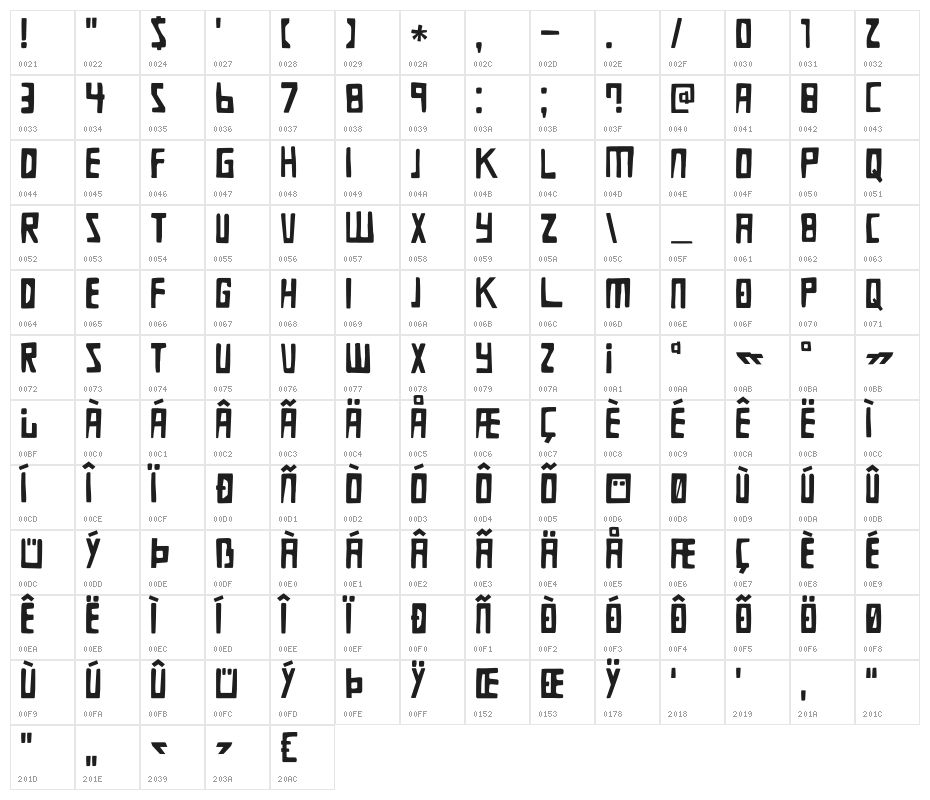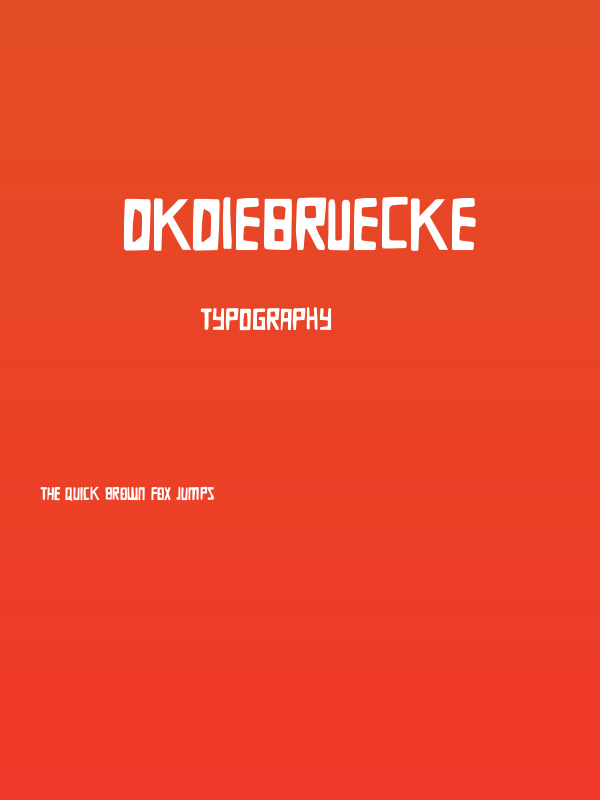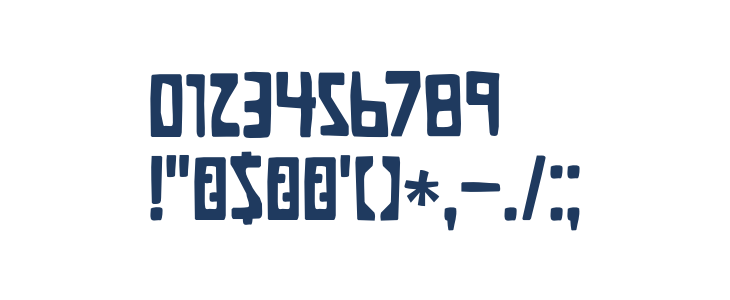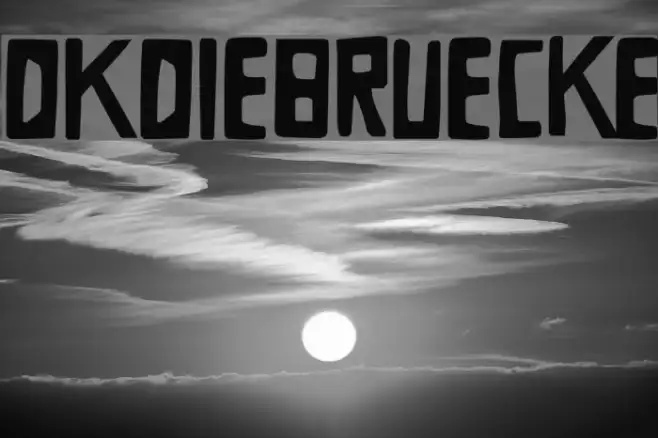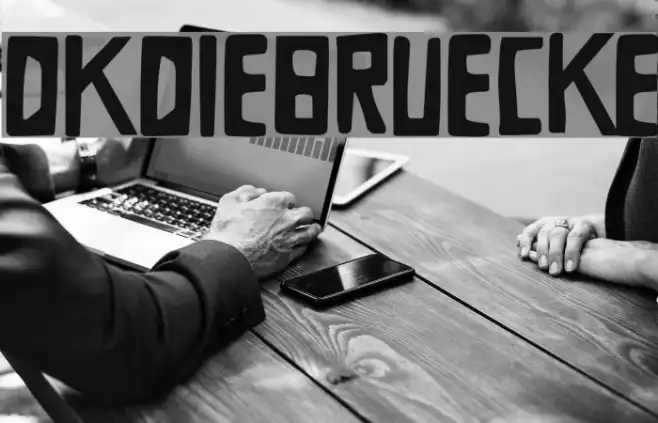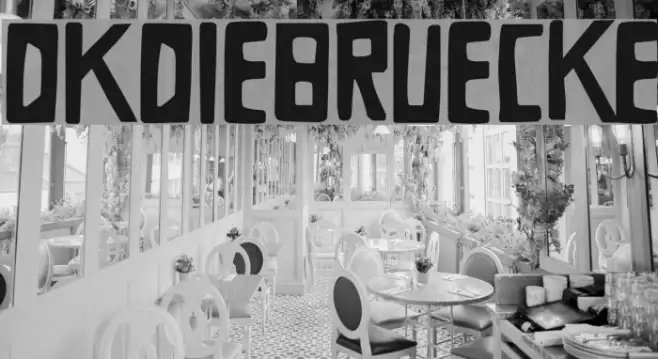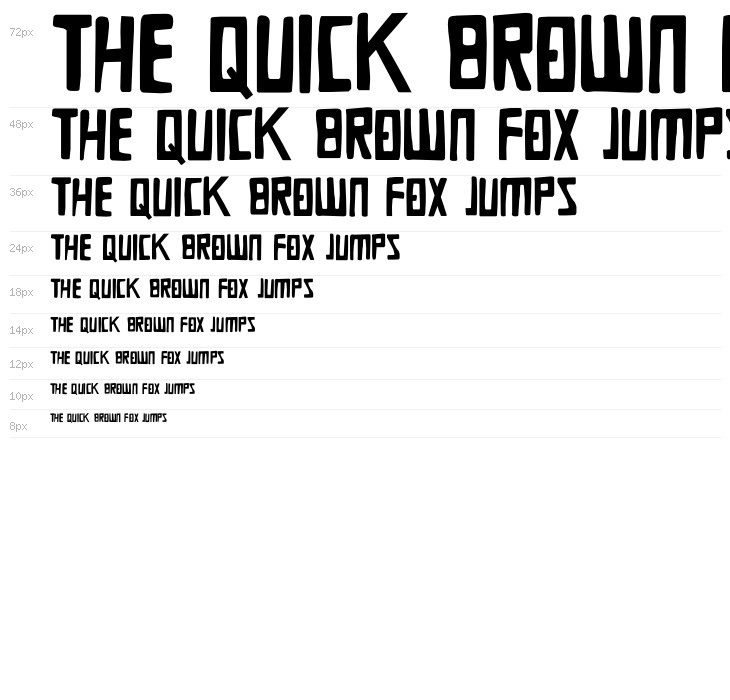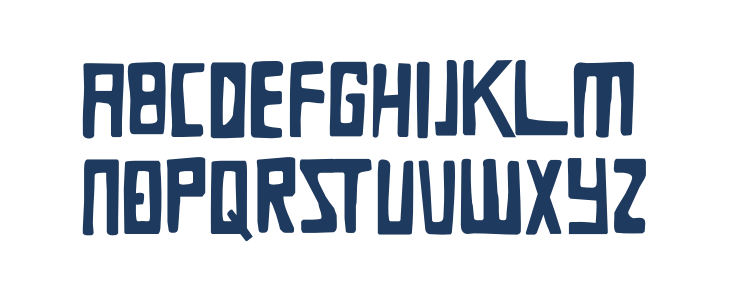
DKDieBruecke Font
DKDieBruecke Description
This font features a bold, blocky design with a strong presence. The characters are uniformly thick, giving them a robust and impactful appearance. The style is reminiscent of early 20th-century modernist design, with a geometric and slightly abstract feel. The uppercase and lowercase letters maintain a consistent height, contributing to a cohesive look. The numerals and special characters follow the same design principles, ensuring uniformity across all glyphs. The overall aesthetic is both artistic and functional, making it suitable for projects that require a distinctive and memorable typeface.
| Proposed Projects | Ideal for posters, album covers, branding, and any project seeking a strong visual impact. |